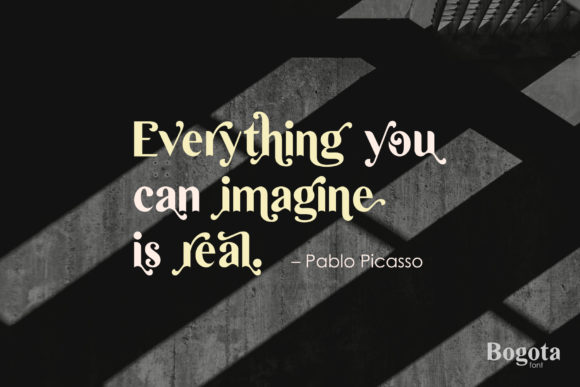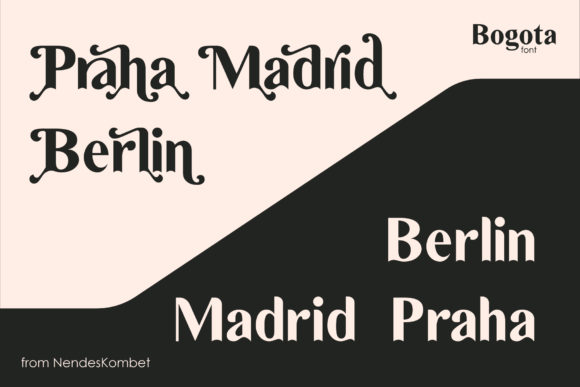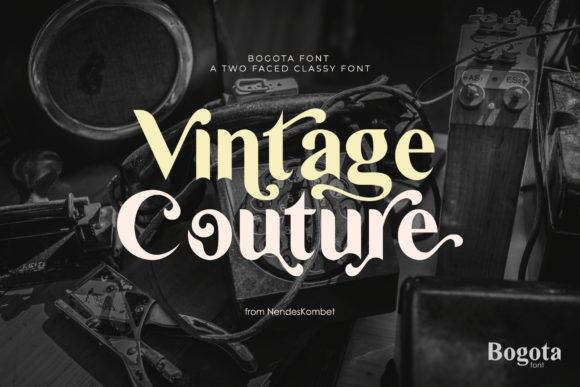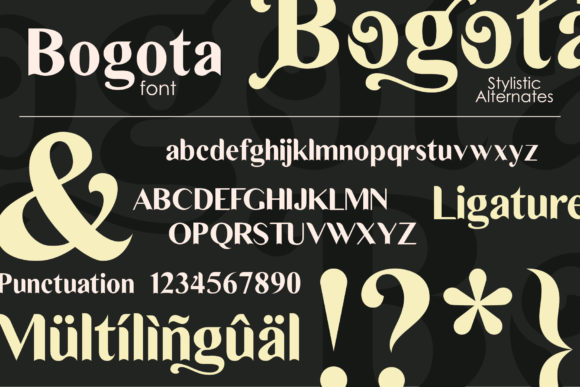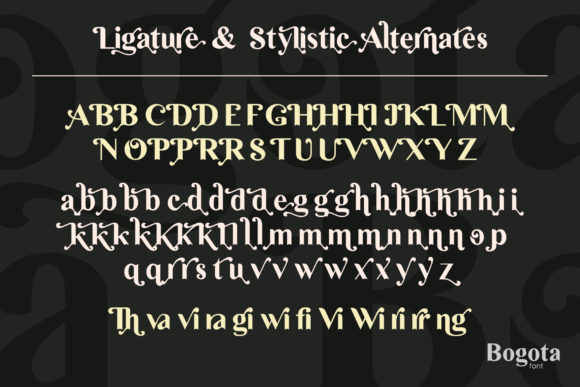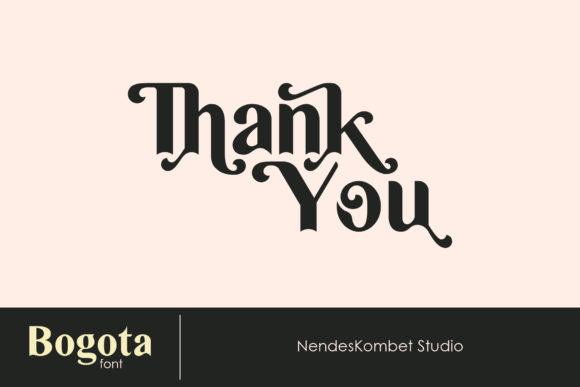
Bogota Font: Elevate Your Designs with Modern Luxury
Bogota is a stunning modern display font that has taken the design world by storm. Its incredibly versatile style makes it an ideal choice for designers and crafters looking to add a touch of luxury to their creations. With Bogota, you can create spectacular designs that exude elegance and sophistication.
The Allure of Bogota Font
Bogota font is a masterclass in modern typography. Its sleek lines, refined curves, and generous spacing make it a joy to read and behold. This beautiful font is perfect for headlines, titles, and any other design element where you want to make a statement. Whether you’re designing a logo, brochure, or website, Bogota font is sure to turn heads.
Key Features of Bogota Font
• Modern and Luxurious: Bogota font boasts a contemporary design that’s perfect for high-end brands and luxury products.
• Incredibly Versatile: Use Bogota font for a wide range of design projects, from print materials to digital platforms.
• Highly Readable: Bogota font features clear and distinct letterforms, making it easy to read even at small sizes.
• Multilingual Support: Bogota font supports multiple languages, making it a great choice for global brands and multilingual designs.
Design Possibilities with Bogota Font
Bogota font is an incredibly versatile design tool that can be used in a variety of creative ways. Here are a few ideas to get you started:
• Logos and Branding: Use Bogota font to create stunning logos and brand identities that exude luxury and sophistication.
• Print Materials: Add a touch of elegance to your brochures, flyers, posters, and business cards with Bogota font.
• Web Design: Use Bogota font to create visually stunning website headers, titles, and other design elements.
• Packaging Design: Elevate your product packaging with Bogota font and make your products stand out on store shelves.
Tips for Using Bogota Font
To get the most out of Bogota font, here are a few tips to keep in mind:
• Experiment with Font Sizes: Bogota font looks great at a variety of font sizes, so don’t be afraid to experiment and find the perfect size for your design.
• Pair with Other Fonts: Combine Bogota font with other fonts to create visually interesting and dynamic designs.
• Use Bold and Italic Styles: Take advantage of Bogota font’s bold and italic styles to add emphasis and create visual hierarchy in your designs.
Bogota font is a modern and luxurious display font that’s perfect for designers and crafters looking to elevate their designs. With its incredibly versatile style, Bogota font can be used for a wide range of design projects, from print materials to digital platforms. Whether you’re designing a logo, brochure, or website, Bogota font is sure to make a statement. So why wait? Fall in love with Bogota font and start creating spectacular designs today!